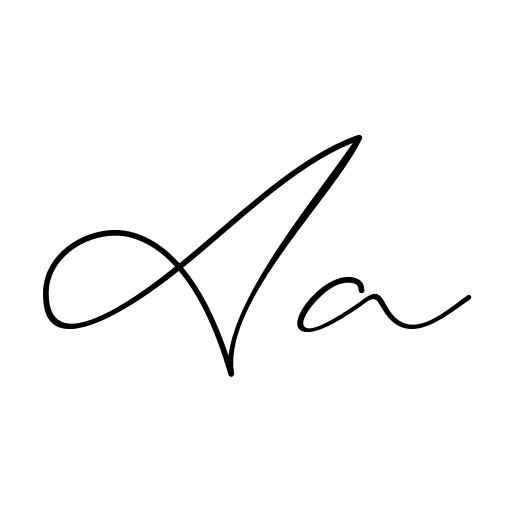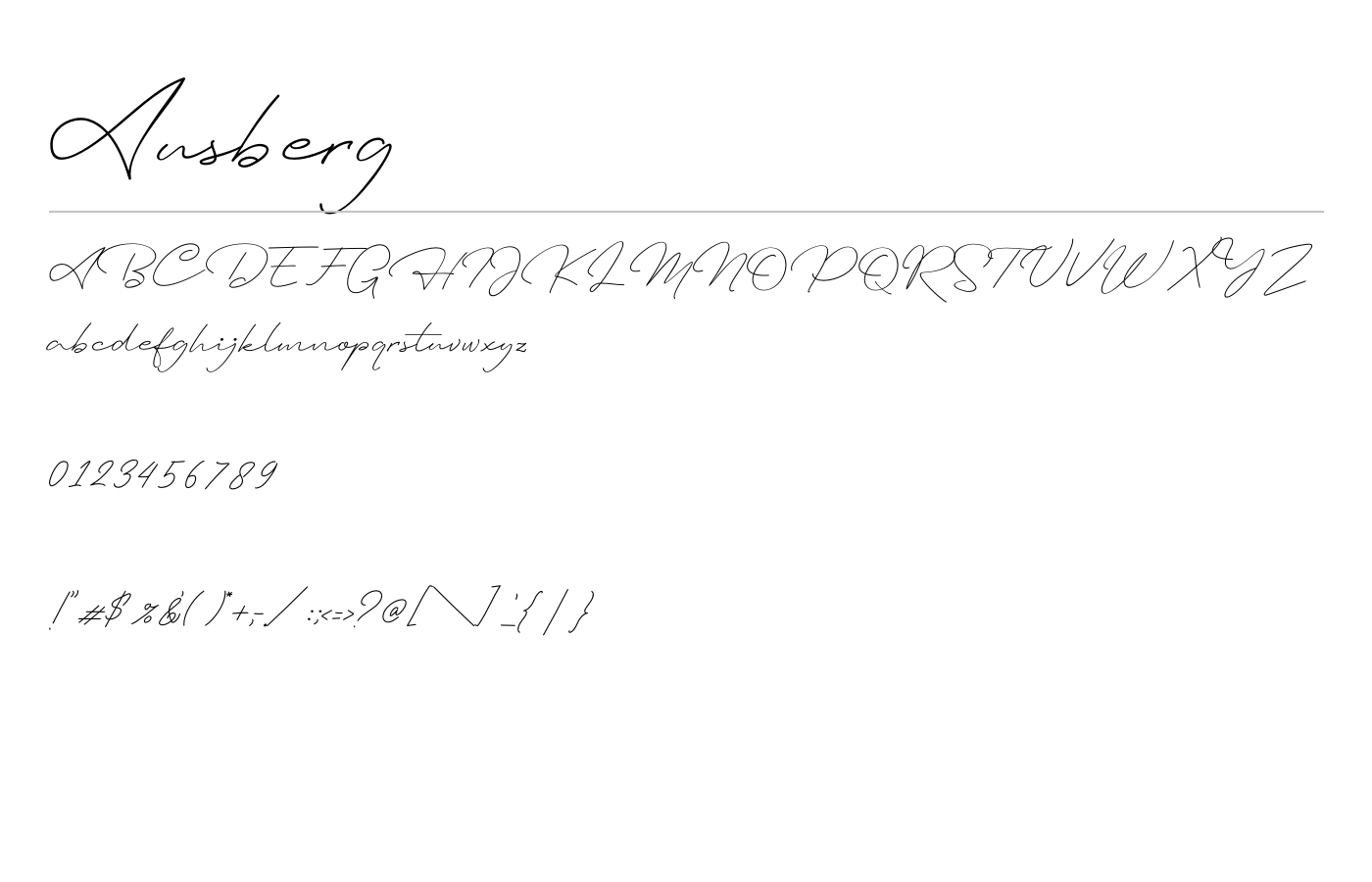
Ausberg is a delicate and elegant script font characterized by its thin, flowing strokes and graceful letterforms that mimic refined handwriting. Its light weight and airy spacing give it a sophisticated, artistic feel, making it perfect for invitations, branding, and projects that seek a personal yet polished touch. This font works best in large sizes for headlines or logos where its fine details can be fully appreciated.
Ausberg Font
About Ausberg Font
| Font family | Ausberg Font |
| Designer | Muhammad Sirojuddin |